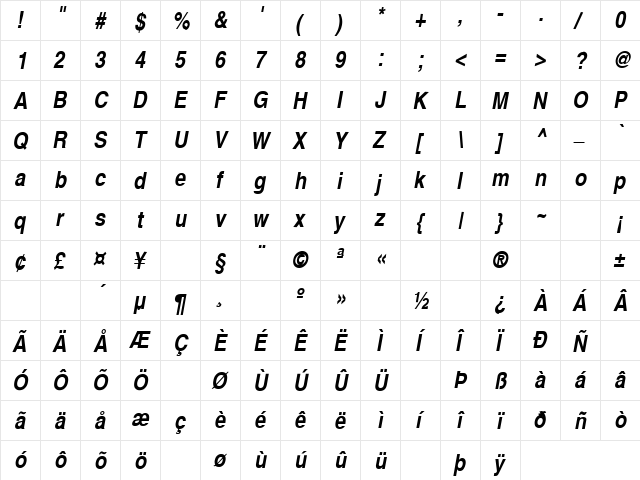
Communication 15 Regular
Design Context for Communication 15 Typeface
Communication 15 takes a measured approach to typography — its balanced proportions and neutral character make it a reliable workhorse for both digital and print work.
Pro Tip: Pair Communication 15 with a font of contrasting weight or personality to build a more expressive typographic hierarchy.